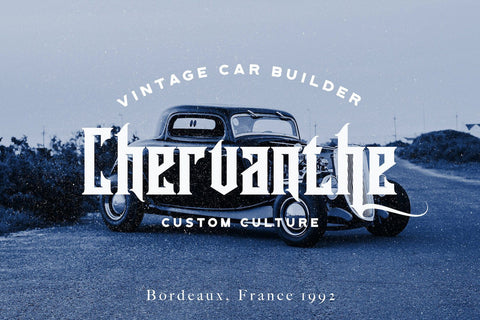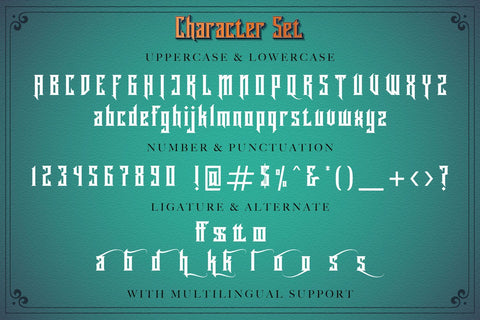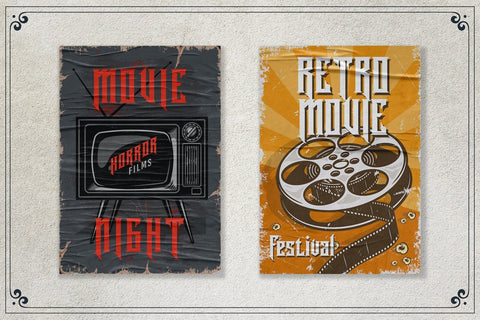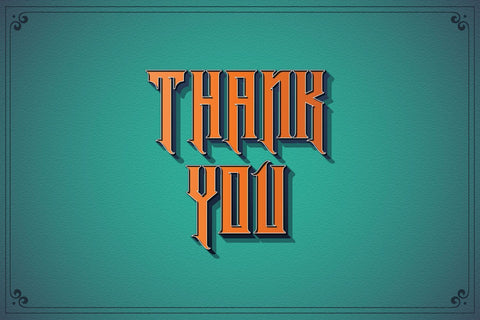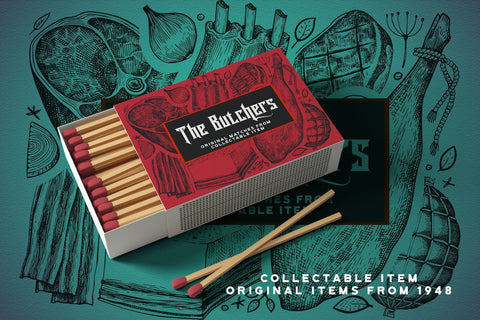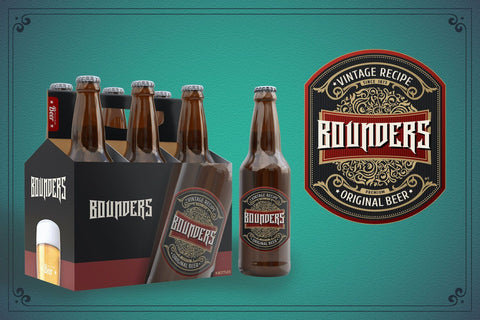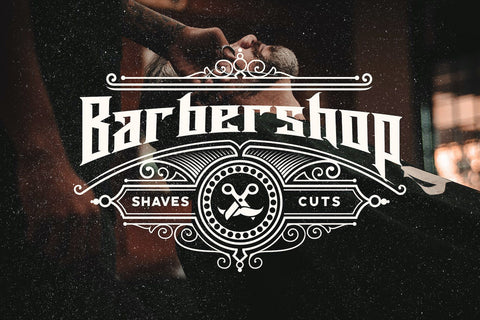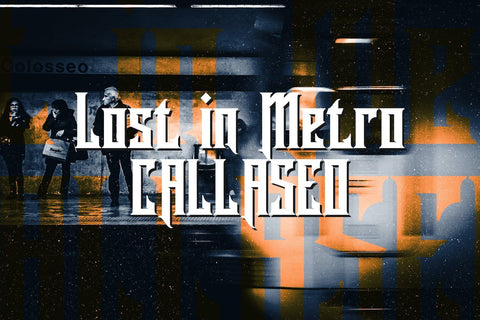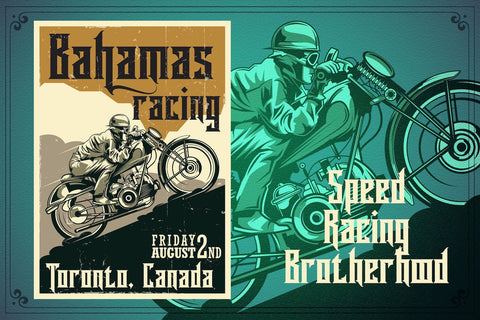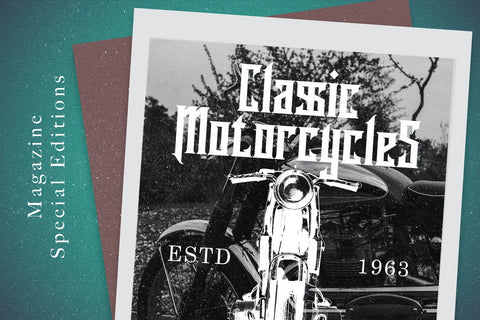
Rademos - Blackletter Font
Introducing Rademos - Blackletter Font
Rademos is an incredibly authentic and daring blackletter font. Add this font to your favorite creative ideas and notice how it makes them stand out!